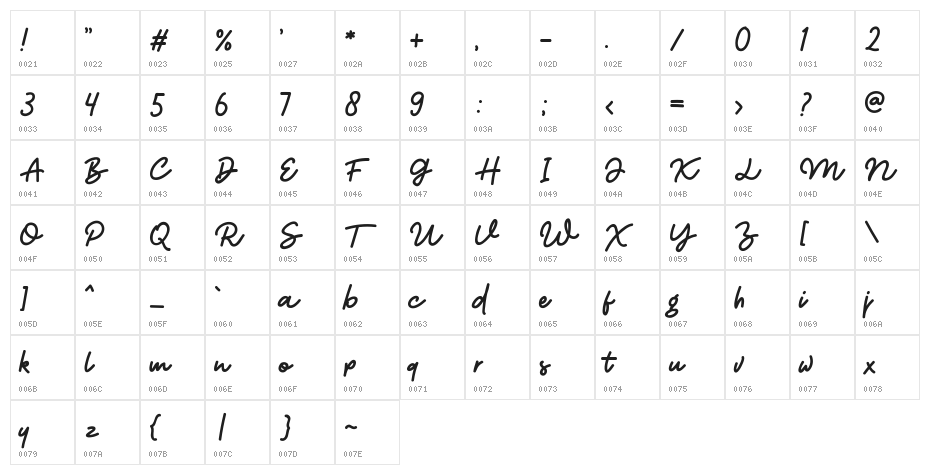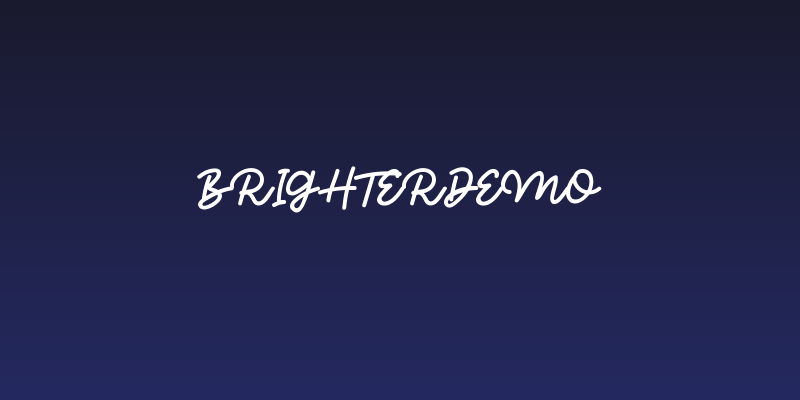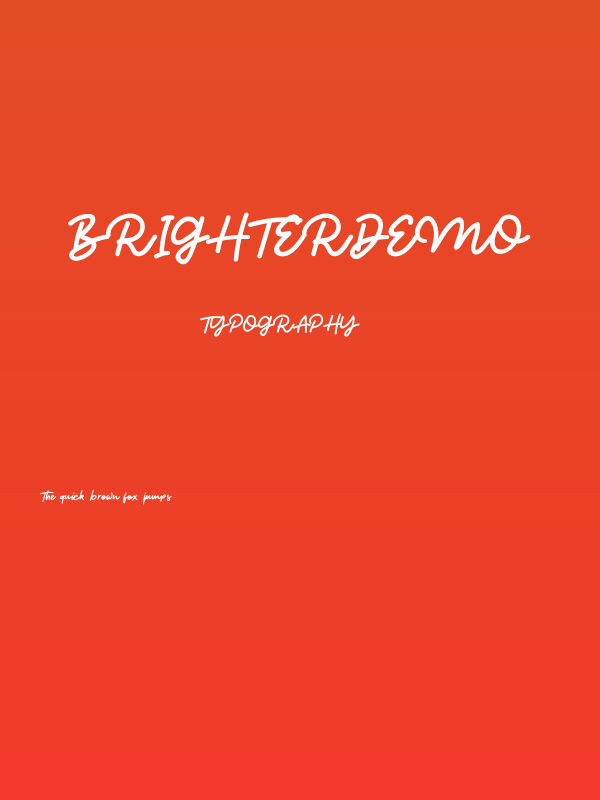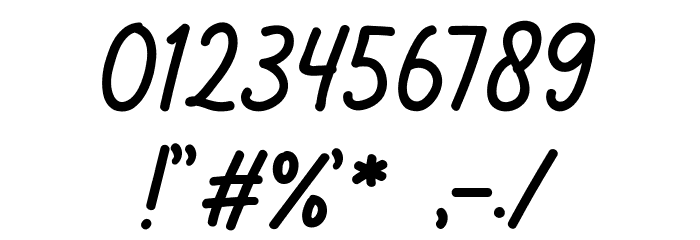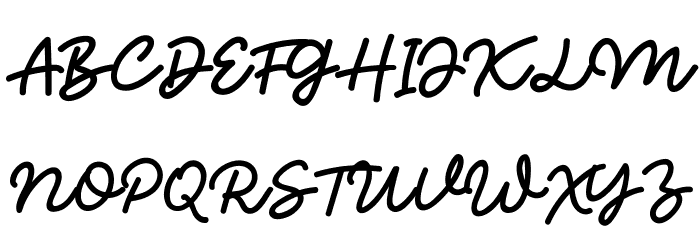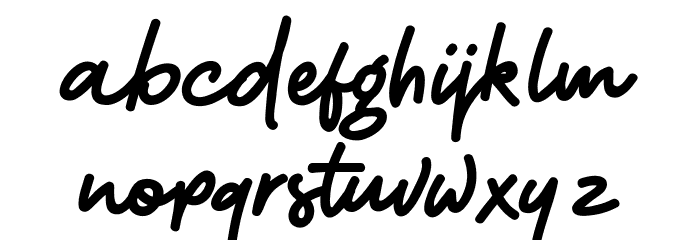
BrighterDEMO Font
BrighterDEMO Description
This font features a lively and expressive handwritten style, characterized by its fluid and connected strokes. The uppercase and lowercase letters maintain a consistent flow, giving a sense of movement and personality. The numerals and special characters complement the alphabet with a similar handwritten touch, ensuring uniformity across all characters. The font's playful yet elegant appearance makes it suitable for a variety of creative applications.
| Proposed Projects | Ideal for greeting cards, personal branding, invitations, and creative projects that require a personal touch. |